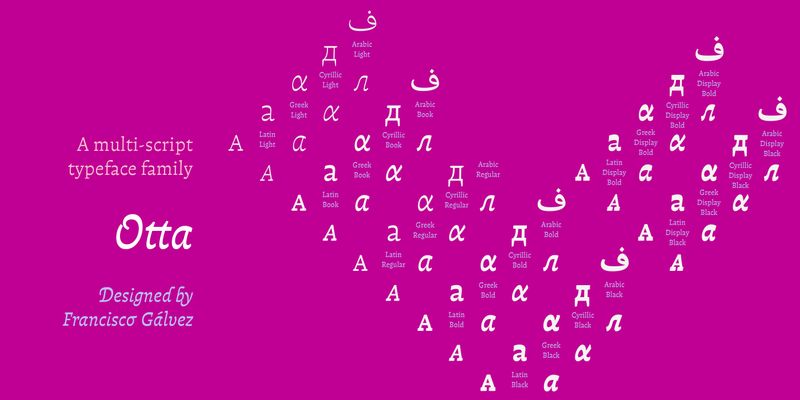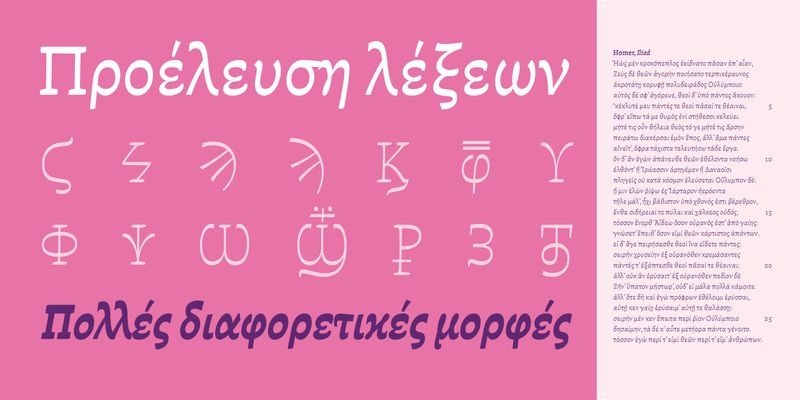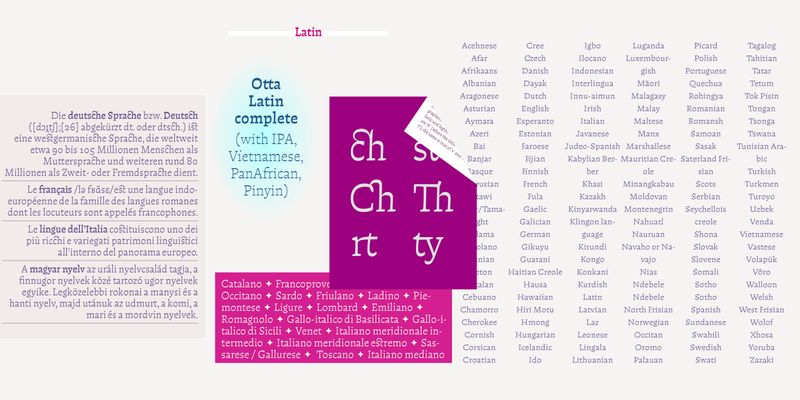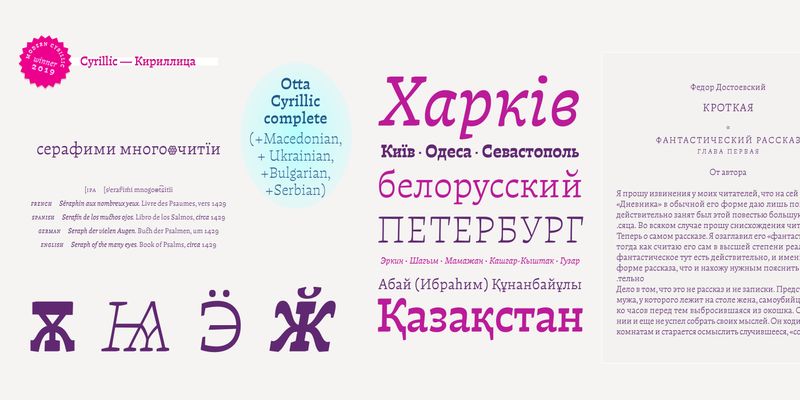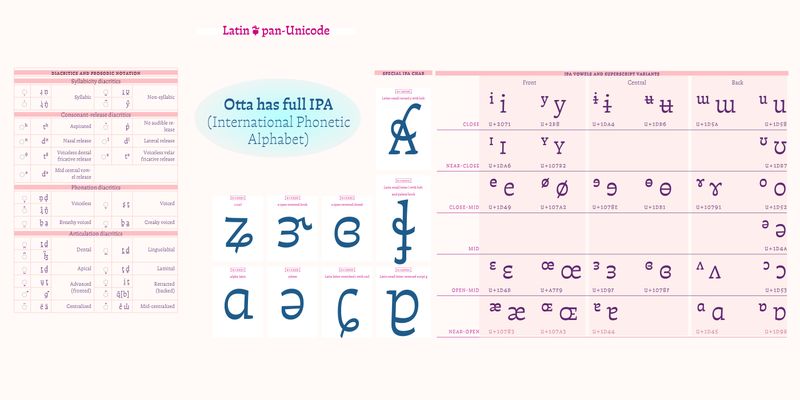
As a sensitive counter-response to the advance of AI in all fields, Otta aims to vibrate on a profoundly human frequency. Its gentle, organic tone seeks a return to the human sense, to the delicacy of the artisanal and the handmade. It has been carefully drawn under a criterion of rhythm that seeks to synthesize both calligraphic and typographic forms suitable for continuous reading. Like other typefaces in our library, Otta is also the result of an exploration of horizontal contrast in type design, following the example of scripts that use it as part of their tradition, such as Arabic and Greek. Otta was specifically designed by Francisco to compose his own typography book ‘Hacer y Componer’ (Making and Composing), a must-read for typography lovers, in which he needed to harmoniously combine various scripts of the world within a single page.